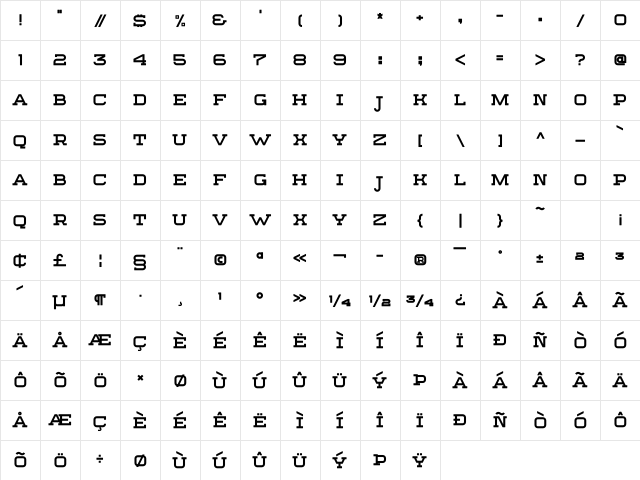
Sebastien Slab Round Regular Free Font
Sebastien Slab Round Regular
Foundry: Out Of Step Font Company
Designer: Out Of Step Font Company
Design Context for Sebastien Slab Round
Sebastien Slab Round features prominent, blocky serifs that give it a confident, grounded presence - equally at home in editorial settings and bold branding work.
Who designed the Sebastien Slab Round Regular font?